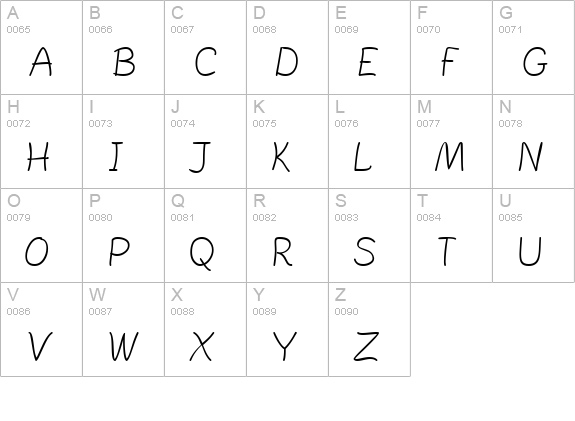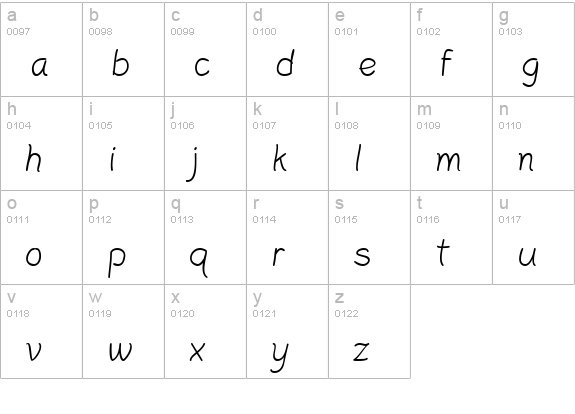
IEOcean2 Font Details
IEOcean2 is a captivating and versatile font that will transport you to the depths of the ocean with its graceful and fluid design. This font is the perfect choice for any project that aims to evoke a sense of tranquility, elegance, or adventure. With its gentle curves and smooth lines, IEOcean2 captures the essence of the ocean waves, creating a truly mesmerizing visual experience. Its exquisite details and unique letterforms make it stand out from the crowd, ensuring that your designs will make a lasting impression. What sets IEOcean2 apart is not only its stunning aesthetics but also its availability. This incredible font is completely free and can be easily downloaded at FontsMarket.com. Yes, you read that right - it's free! Now you can add a touch of sophistication and creativity to your projects without breaking the bank. Whether you're designing a logo, creating an eye-catching poster, or enhancing your website, IEOcean2 is a font that will elevate your work to new heights. Its versatility allows it to adapt to any style or theme, making it suitable for a wide range of applications. Don't miss the opportunity to enhance your designs with the beauty and elegance of IEOcean2. Download it for free today at FontsMarket.com and dive into a world of endless possibilities.